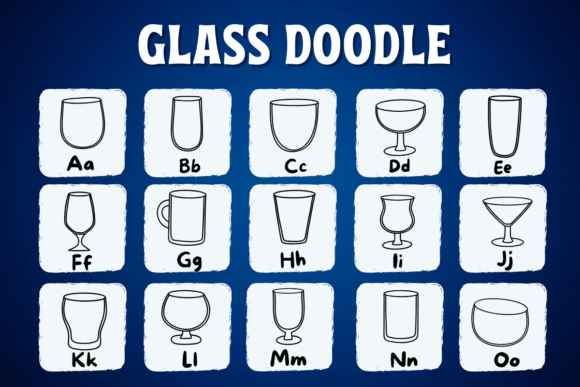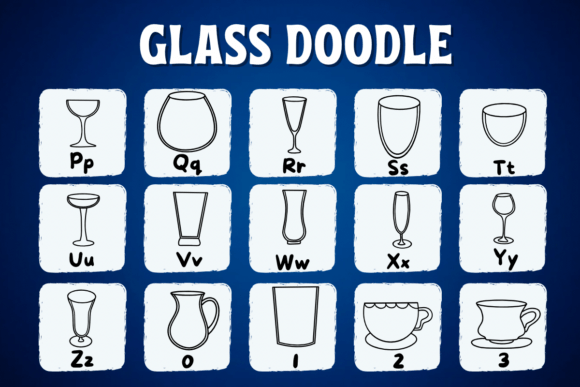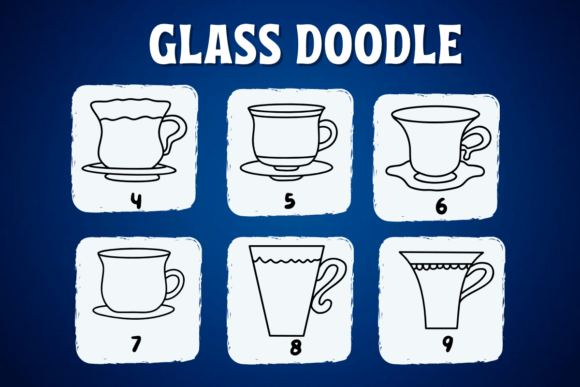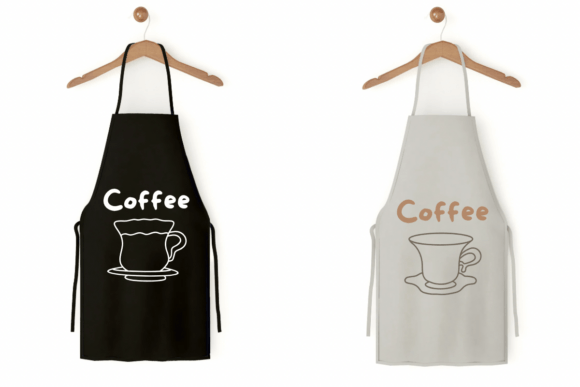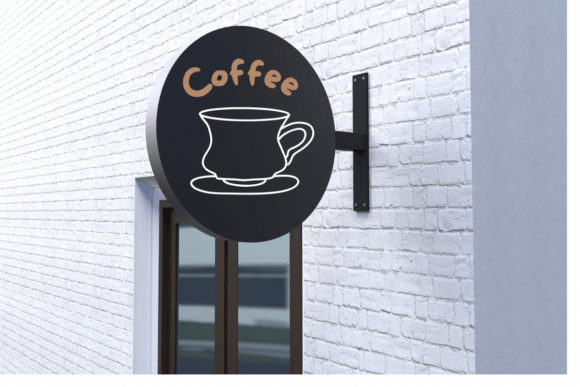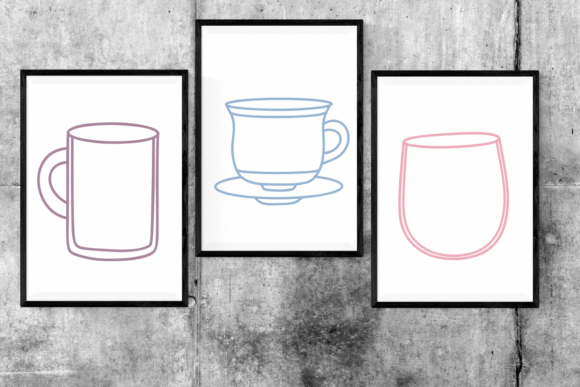
Unlock Creative Possibilities with Glass Doodle Font
Are you a designer, crafter, or DIY enthusiast looking for a unique and versatile font to elevate your creative projects? Look no further than Glass Doodle Font, a stunning dingbats font with a sketched style that’s perfect for adding a personal touch to your designs. In this article, we’ll explore the features and benefits of Glass Doodle Font, and show you how it can enhance your creative projects, from wedding invitations to logos and beyond.
What is Glass Doodle Font?
Glass Doodle Font is a dingbats font that features a charming, hand-sketched style. The font is made up of intricate doodles and illustrations that can add a touch of whimsy and personality to your designs. With its unique and eye-catching style, Glass Doodle Font is perfect for designers and crafters who want to create something truly special.
Features of Glass Doodle Font
So, what makes Glass Doodle Font so special? Here are just a few of its key features:
• Unique Sketched Style: Glass Doodle Font features a distinctive, hand-sketched style that’s perfect for adding a personal touch to your designs.
• Dingbats Font: As a dingbats font, Glass Doodle Font features a wide range of illustrations and symbols that can be used to enhance your designs.
• Versatile: Glass Doodle Font can be used for a wide range of creative projects, from wedding invitations to logos, DIY crafts, and more.
Creative Projects with Glass Doodle Font
So, how can you use Glass Doodle Font in your creative projects? Here are just a few ideas to get you started:
• Wedding Invitations: Add a touch of elegance and whimsy to your wedding invitations with Glass Doodle Font.
• DIY Crafts: Use Glass Doodle Font to create custom labels, cards, and other DIY crafts.
• Logos and Branding: Create a unique and memorable logo for your business or brand with Glass Doodle Font.
• Decorations: Use Glass Doodle Font to create custom decorations, such as party banners, garlands, and more.
Glass Doodle Font is a versatile and unique dingbats font that’s perfect for designers, crafters, and DIY enthusiasts. With its sketched style and wide range of illustrations, Glass Doodle Font can add a touch of personality and whimsy to your creative projects. Whether you’re creating wedding invitations, logos, or DIY crafts, Glass Doodle Font is the perfect choice. So why wait? Download Glass Doodle Font today and start unlocking your creative possibilities!